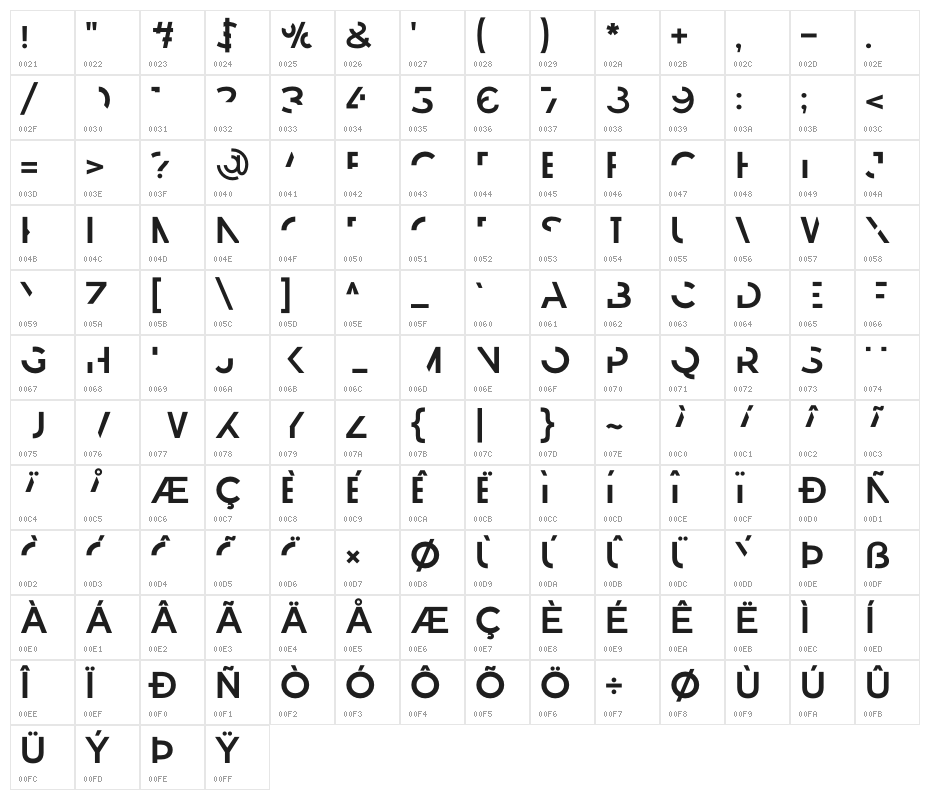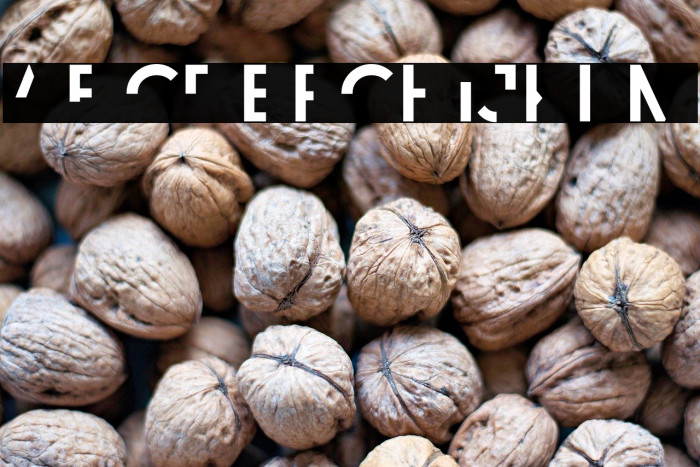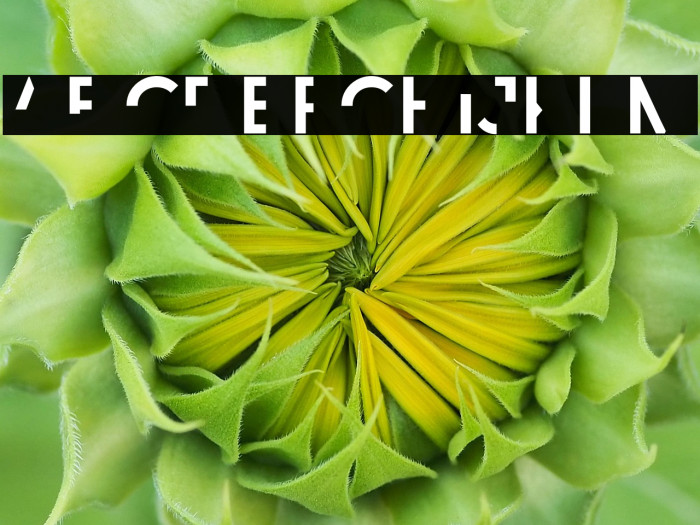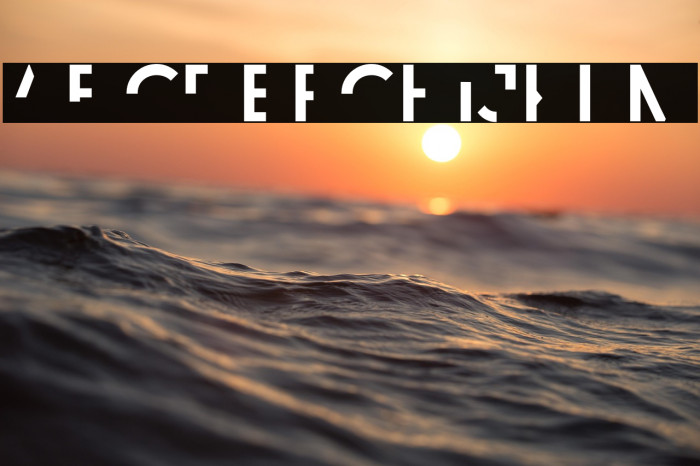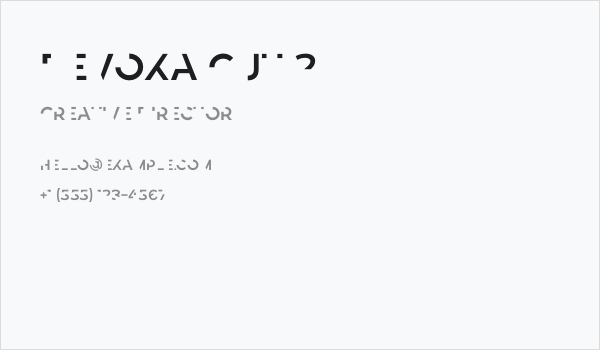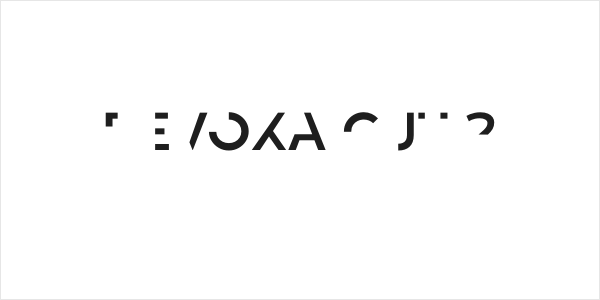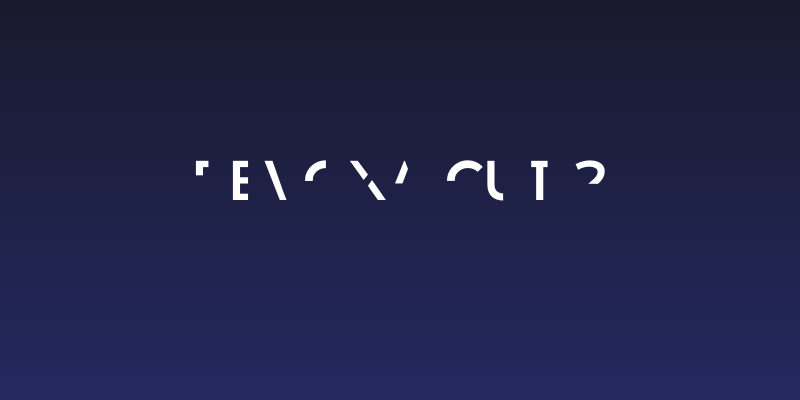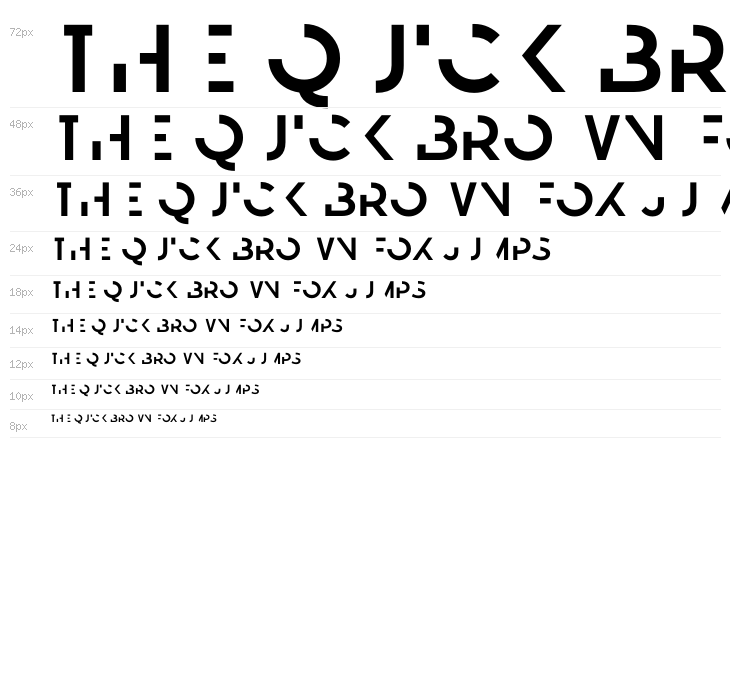
Revoxa Cut 2 Font
Revoxa Cut 2 Description
This font features a unique, modern design with a cut-out style that creates a striking visual effect. The characters are bold and geometric, with sections removed to form an intriguing pattern that maintains legibility while adding artistic flair. The uppercase and lowercase letters share a consistent style, with sharp angles and clean lines. Numbers and special characters are designed to match the overall aesthetic, making this font suitable for creative and contemporary projects. The font's distinctive appearance makes it ideal for use in branding, advertising, and digital media where a bold statement is desired.
| Proposed Projects | Ideal for branding, advertising, digital media, and any project requiring a bold, modern statement. |